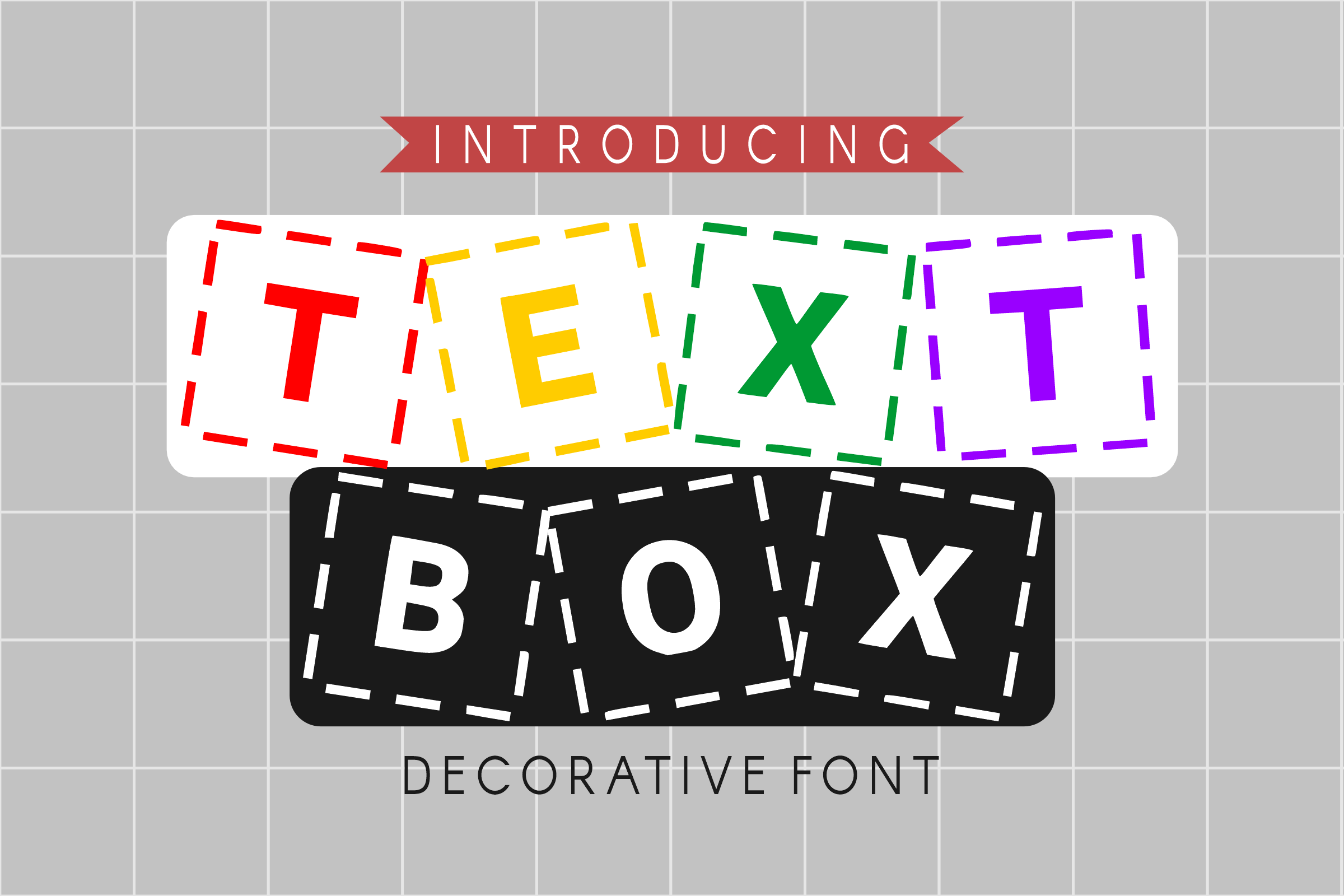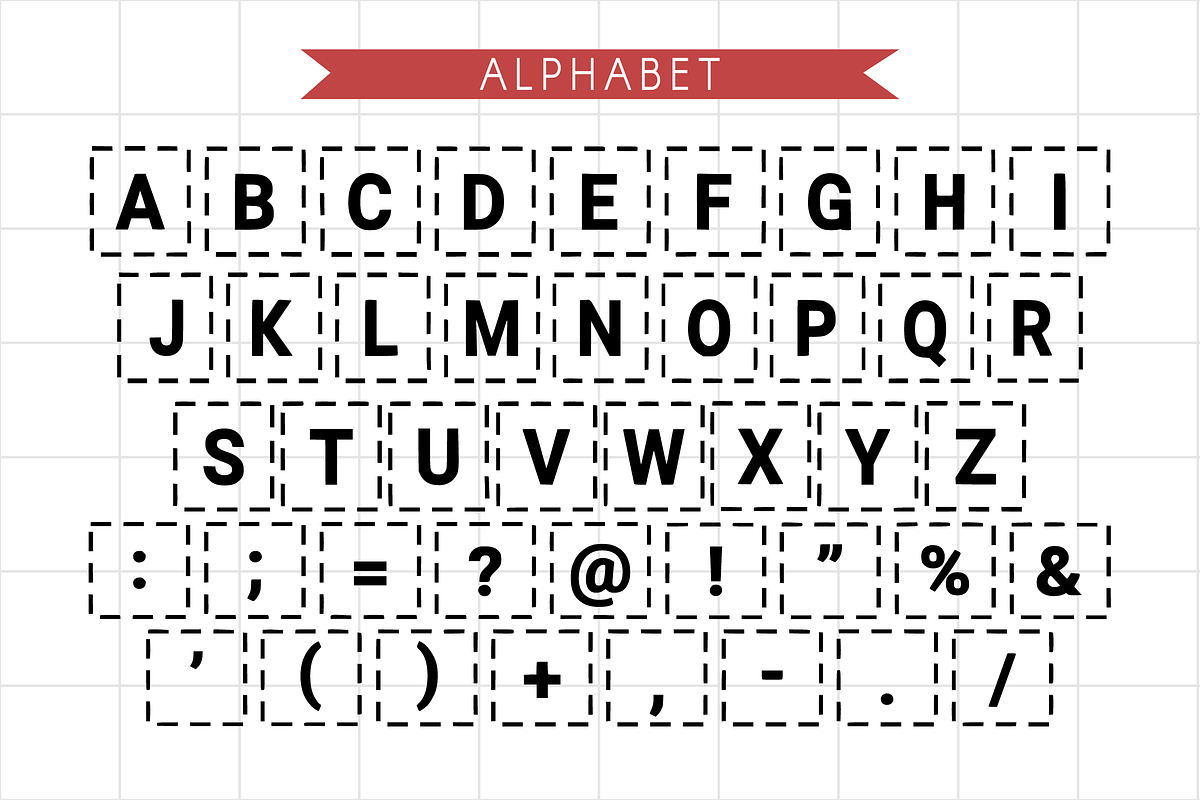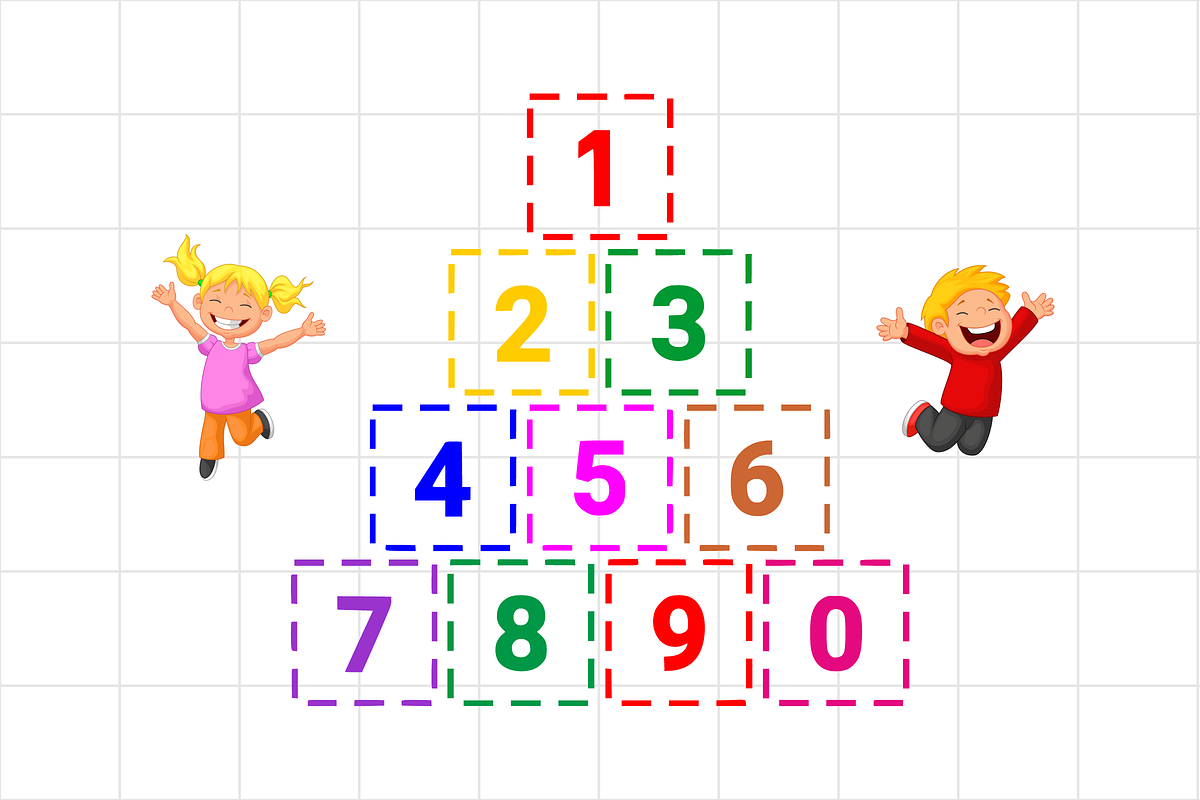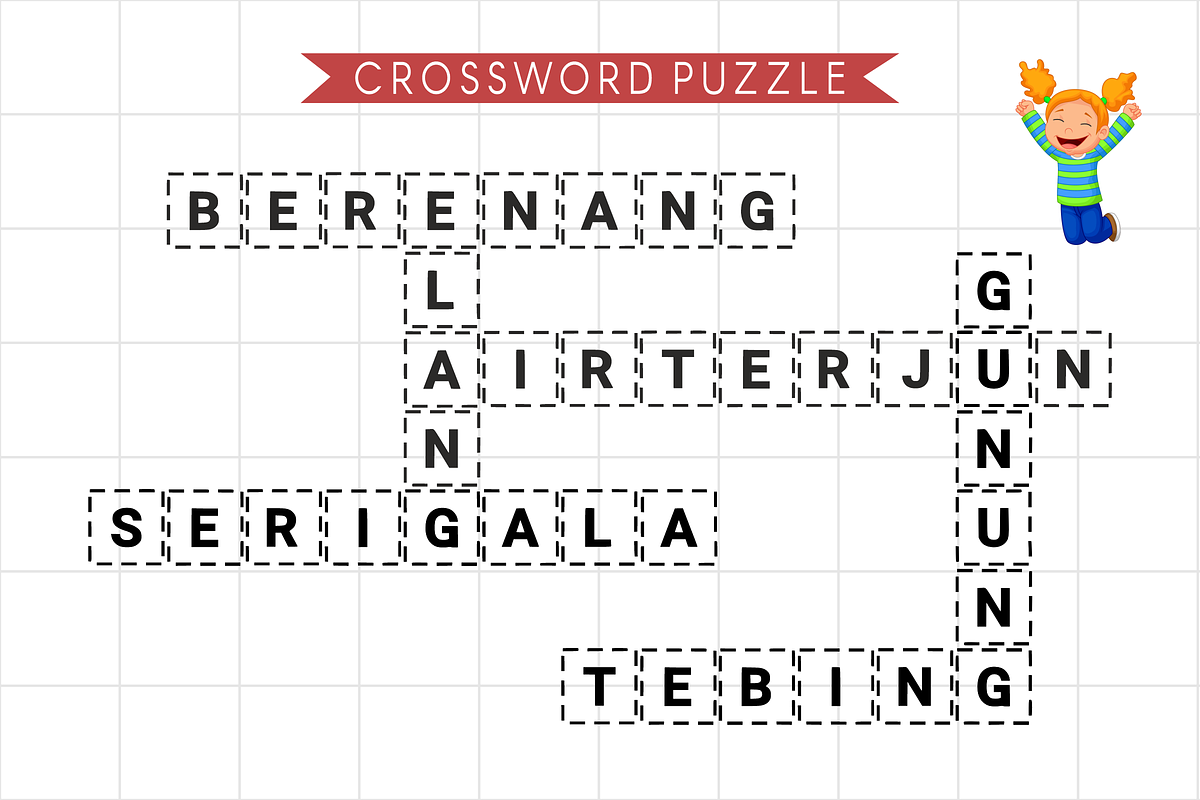
Text Box - Child Font Type
Introducing “Text Box” designed with cute and adorable decorative font style. This box will be perfect for your pet Projects and also your kid related projects like back to school, birthday party decorations and many more for any topic that needs a bright and fun touch. Let’s try it and add it to your creative ideas and see how it makes it stand out!